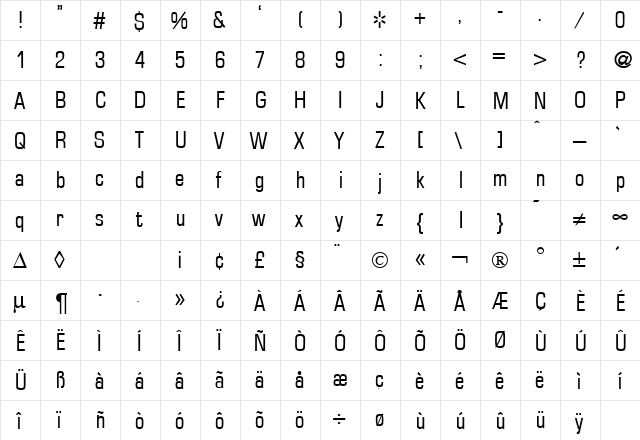
EurasiaCond Regular
Design Context for EurasiaCond Typeface
EurasiaCond is a composed and adaptable typeface that performs quietly and consistently across a wide range of design contexts. Its narrow stance lets it pack a punch even in space-constrained designs.